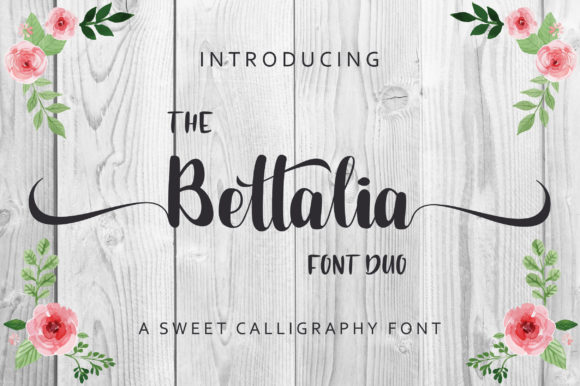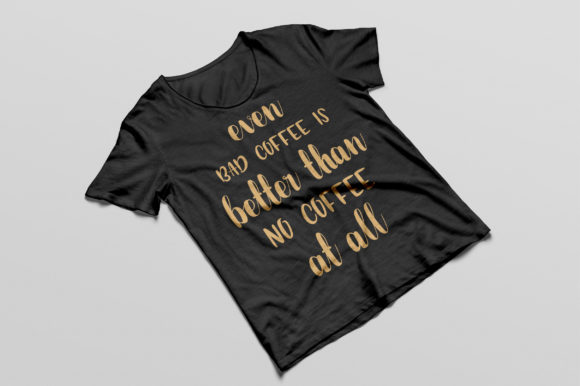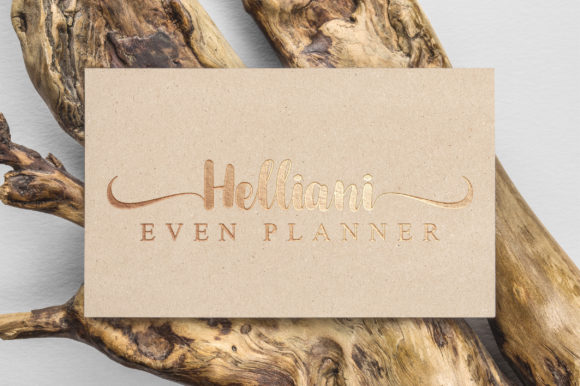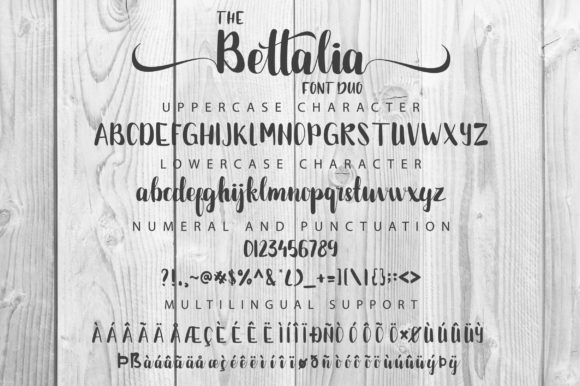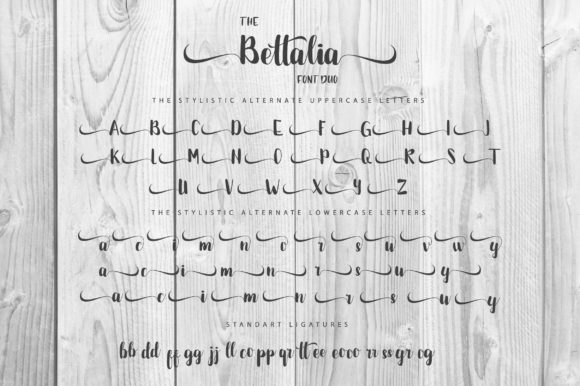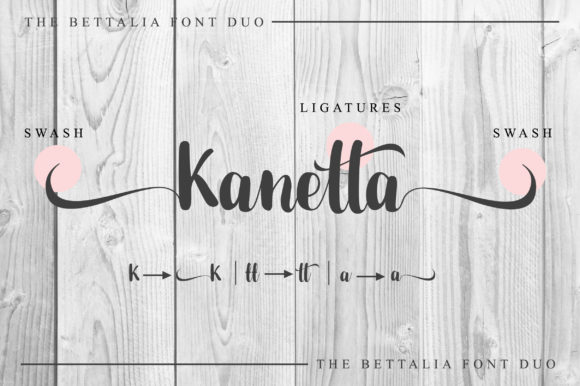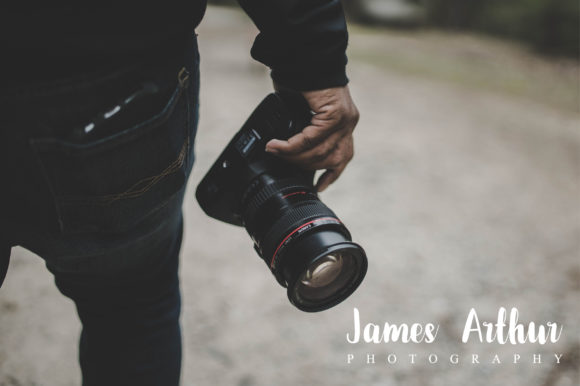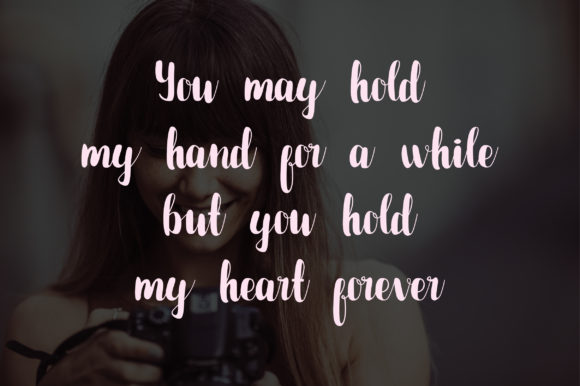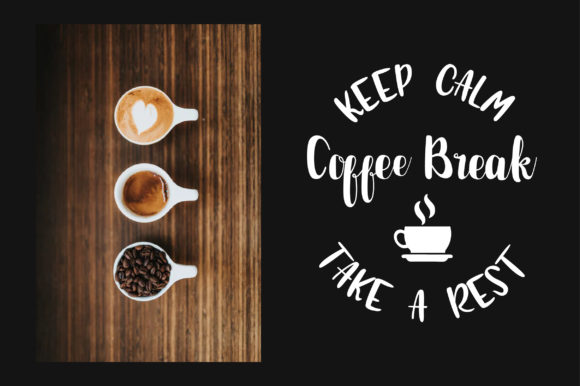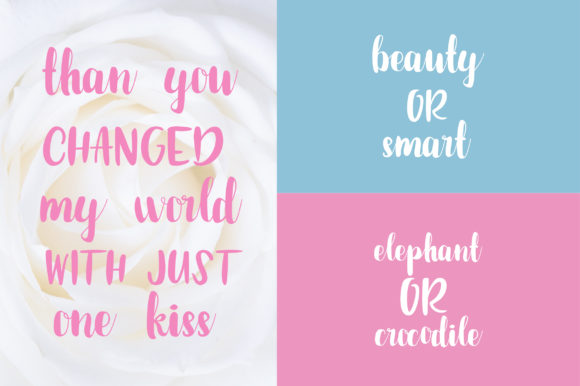
The Bettalia Duo Font
About The Bettalia Duo Font
The Bettalia is an elegant font duo. Its classy, yet modern style offers you to add a personal touch to your designs. This font duo can be used for every design which is looking for a handwritten touch.